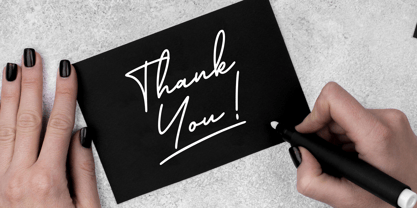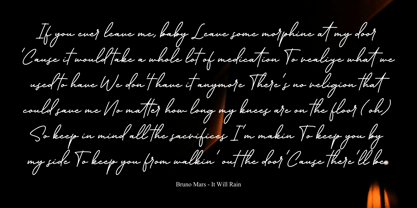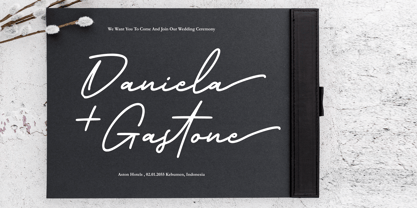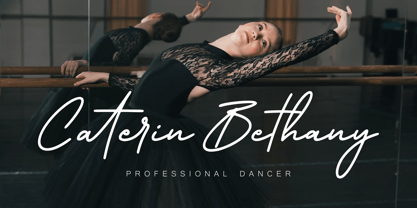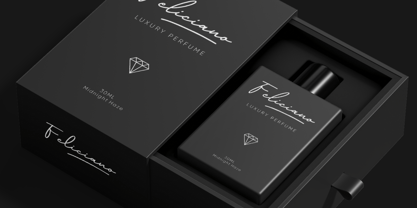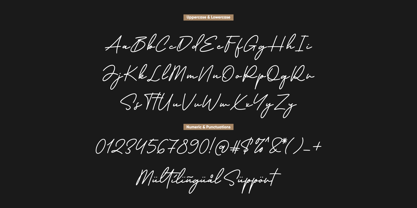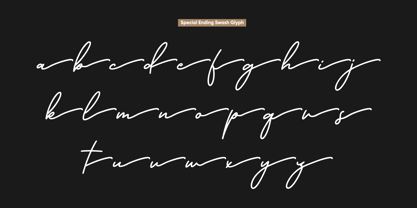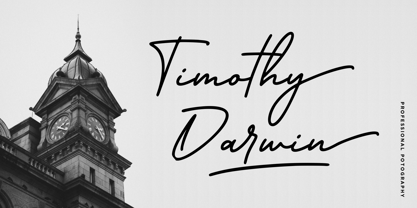
Californian Signature
by Anxietype Foundry
The Californian Signature Font Family was designed by Annas Rifky Anhar and published by Anxietype Foundry. Californian Signature contains 1 styles. More about this family
Experience the chic elegance of Californian Signature, a pristine monoline signature font that personifies luxury and sophistication. With its flawless design and smooth contours, this font exudes a modern flair perfect for logo creations, branding exertions, and the aesthetics of packaging products. It showcases the refined sophistication needed for business endeavors, yet retains a delicate allure apt for creating ethereal wedding invitations or delicate crafting projects. Californian Signature is also ideal for company insignias or embellishing simple backgrounds with its sleek composition. Steeped in class and versatile functionality, Californian Signature is your go-to font for ultimate stylistic expression
Designers: Annas Rifky Anhar
Foundry: Anxietype Foundry
Californian Signature